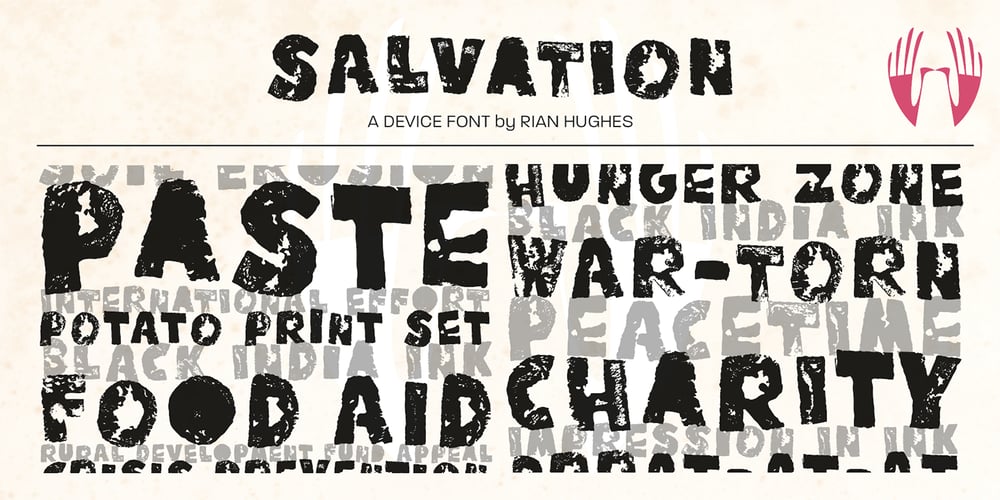
Salvation Font Family was designed by Rian Hughes and published by Device. Salvation contains 1 styles and family package options. Rough and ready, bold and urgent. Or playful and fun in bright colours. The original letters were cut from actual potatoes, then scanned in and converted to vector outlines. Lighter and more heavily inked versions were used for the three variants. Using Opentype character-substitution technology, Salvation rotates through three versions of each letter to create a naturally uneven printed effect. Unlike hot metal type, the potatoes were cut the right way around. This produced reversed prints, which were then flipped back in Photoshop. Originally produced for Hughes’ Get Lettering activity book, the font was then extended to cover numbers, punctuation and full European language support.